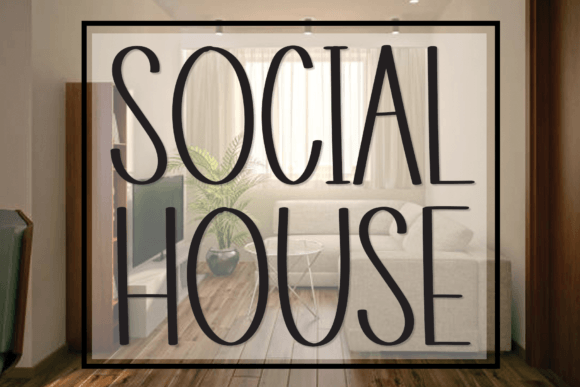
Journey into the realm of Social House, a captivating script font family designed to ignite your creativity and transform your designs into captivating masterpieces. This exquisitely crafted font is the brainchild of Misterletter.co, a visionary artist who poured their heart and soul into creating this unique and remarkable typeface.
The Social House font family is a symphony of elegance and charm, featuring graceful letterforms that dance across the page with a fluidity that mimics the natural flow of handwriting. Its tall, slender characters exude a timeless sophistication, while its latest style letters add a touch of whimsy and playfulness, making it perfect for a wide range of creative projects.
With Social House, you can effortlessly elevate your wall displays, transforming them into captivating works of art that command attention. Its delicate strokes and sweeping curves bring a touch of warmth and intimacy to wedding invitations, making them cherished keepsakes that capture the essence of your special day.
Step into the world of Social House and let your imagination soar. Whether you're crafting logos for social media posts, designing product packaging that stands out on shelves, or creating labels that exude a touch of elegance, this font is your perfect companion. Its versatility extends to photography, where it adds a touch of artistry to watermarks, invitations, and stationery.
Embrace the allure of Social House and watch as your designs take on a life of their own. Its timeless beauty and modern sensibility make it the perfect choice for any project that requires a taste of handwritten elegance. Let Social House be your muse and unlock a world of creative possibilities.